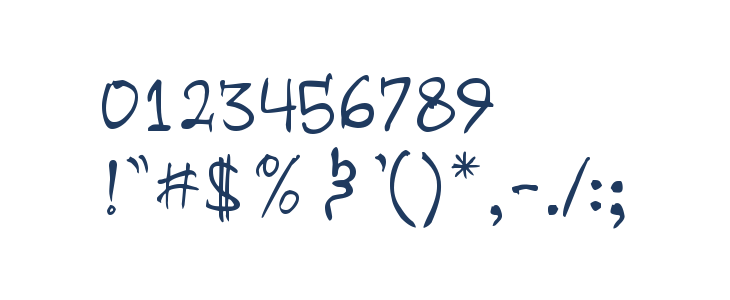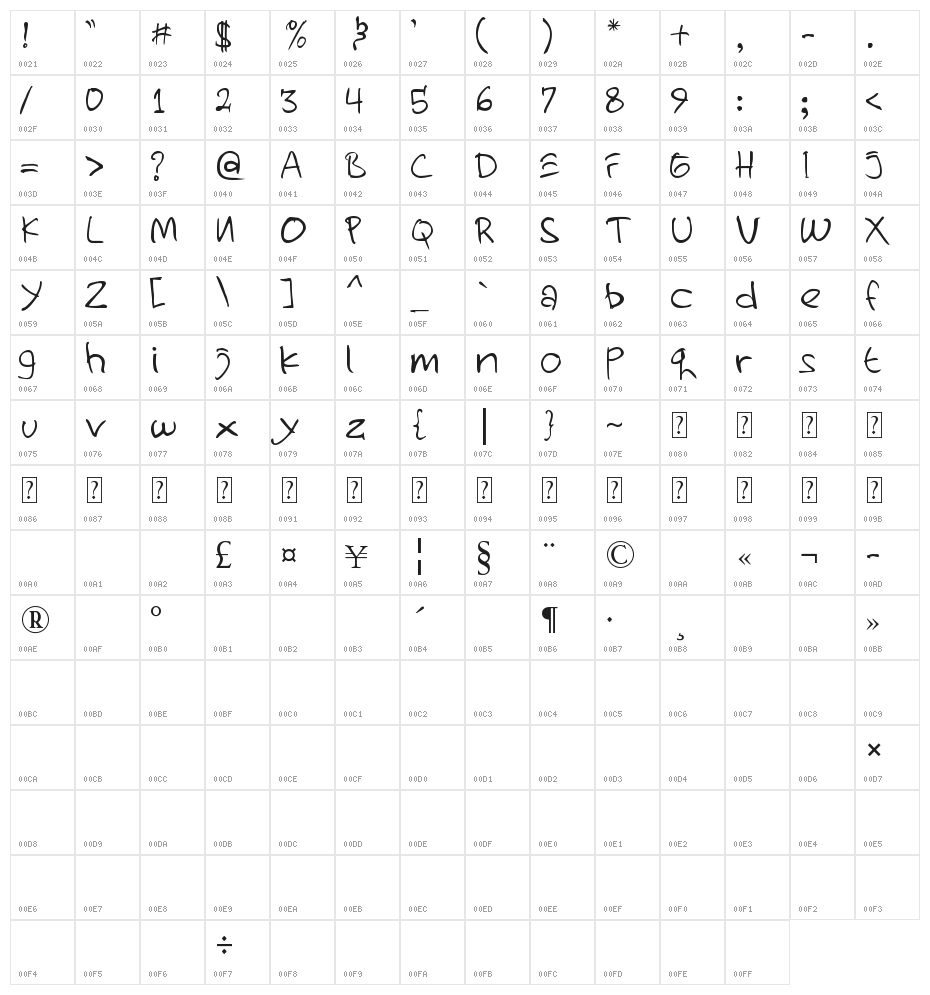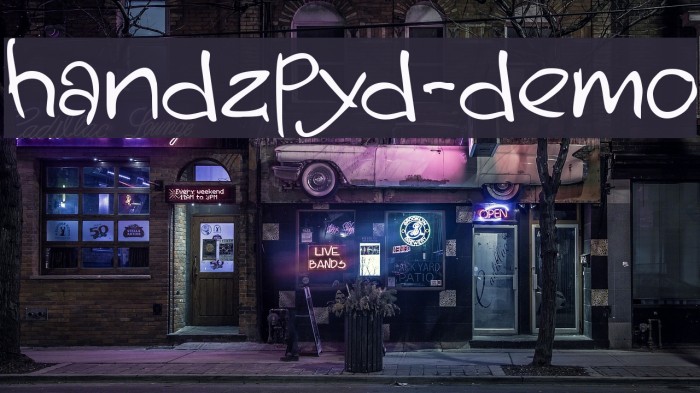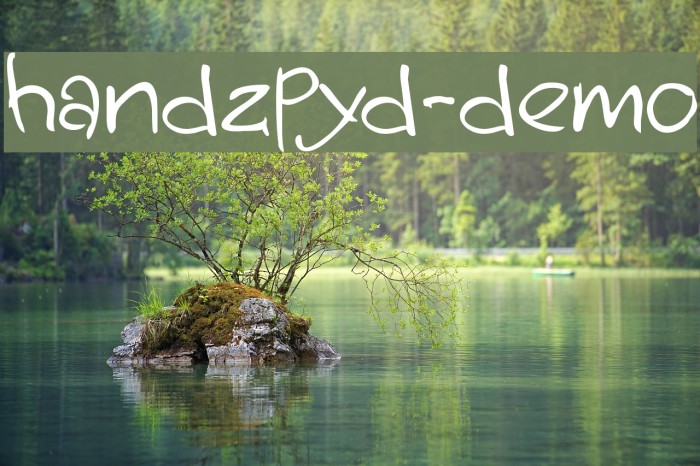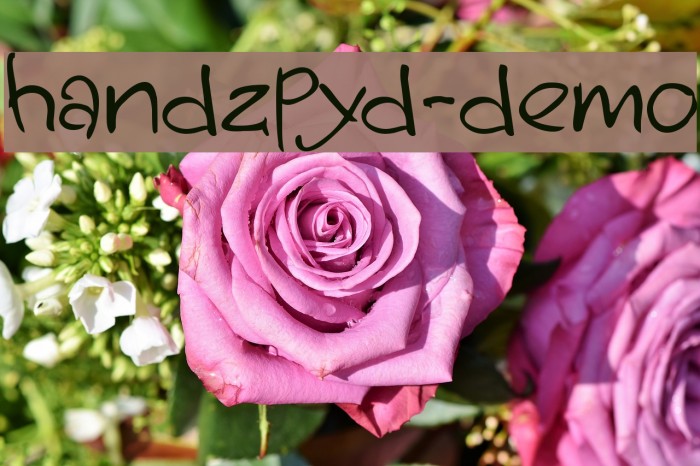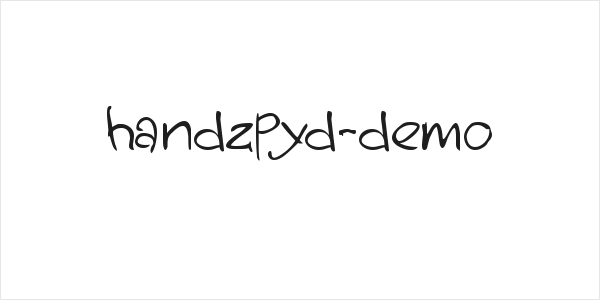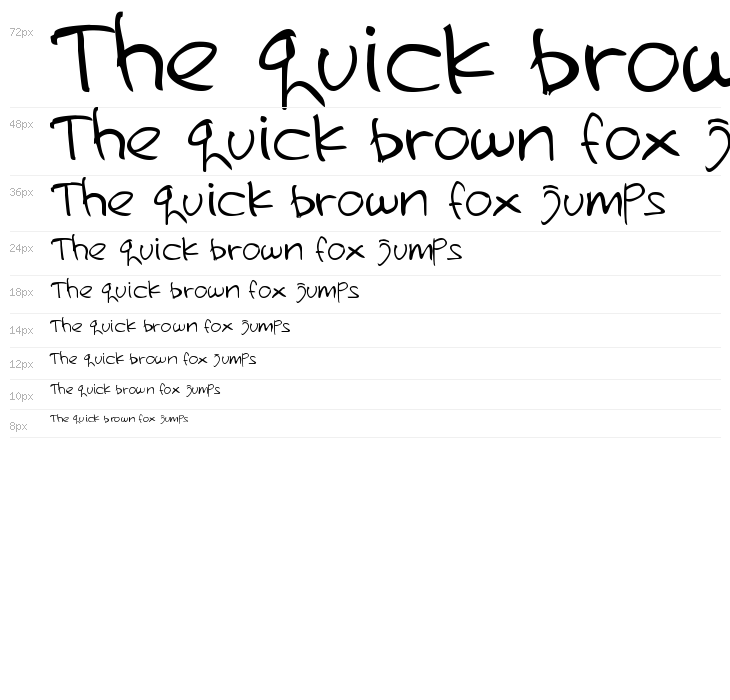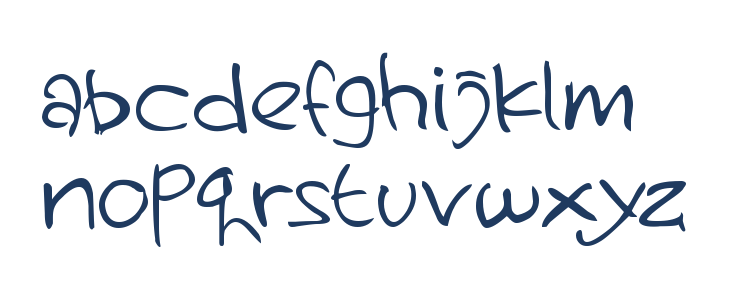
handzpyd-demo Font
handzpyd-demo Description
This font exhibits a playful and casual handwritten style, characterized by its irregular strokes and varying line thickness. The letters have a lively and dynamic appearance, with a slight slant that adds to its informal charm. The uppercase and lowercase letters maintain a consistent flow, while the numerals and special characters complement the overall aesthetic. The font's organic feel makes it suitable for projects that require a personal touch or a relaxed vibe.
| Proposed Projects | Ideal for greeting cards, personal blogs, children's books, and informal branding. |